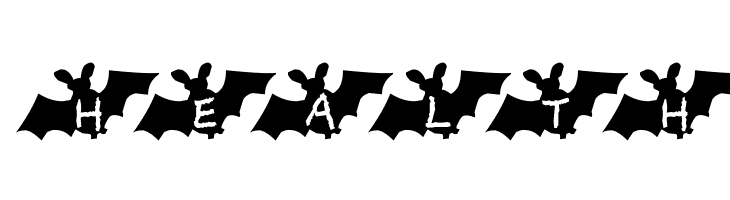
A collection of Egyptian-themed illustrative icons depicting gods, symbols, and scenes.
A playful, fuzzy-edged font perfect for festive designs.
A dingbat font of hand-drawn children's drawings and playful scenes.
A collection of stylized animal and mythical creature silhouettes with tribal and indigenous art influences.
Whimsical decorative font with cartoon devil illustrations instead of letters.
A collection of tribal-inspired illustrations featuring animals and abstract figures with intricate patterns.
A playful, ghost-themed decorative font with a whimsical and spooky style.
A collection of iconic theme park and entertainment company symbols.
Pixel art illustrations of people and animals.
A decorative font with festive and celebratory icons.
A collection of playful, baby-themed icons and illustrations.
A Halloween-themed decorative font with spooky and playful elements.
A decorative font with Christmas-themed illustrations replacing letters and numbers.
A Halloween-themed decorative font with spooky icons.
Holiday-themed bear illustrations as font glyphs.
Hand-drawn Easter bunny dingbat illustrations.
A whimsical font with characters inside cupcake outlines, perfect for playful designs.
Irish-themed decorative dingbat font with playful illustrations.
A playful, bone-themed font perfect for pirate or Halloween designs.
A decorative font with spider motifs, ideal for Halloween themes.
Halloween-themed dingbat font with bold, spooky icons.
Halloween icon dingbat font with spooky illustrations.
A decorative font with Dia de los Muertos-themed icons replacing traditional characters.